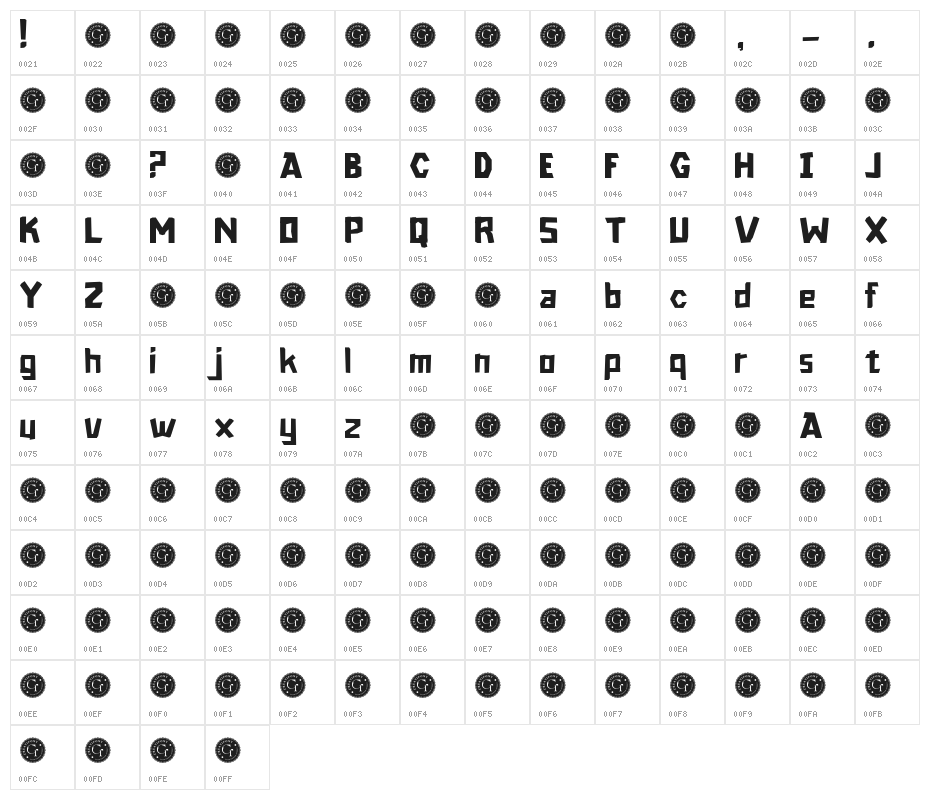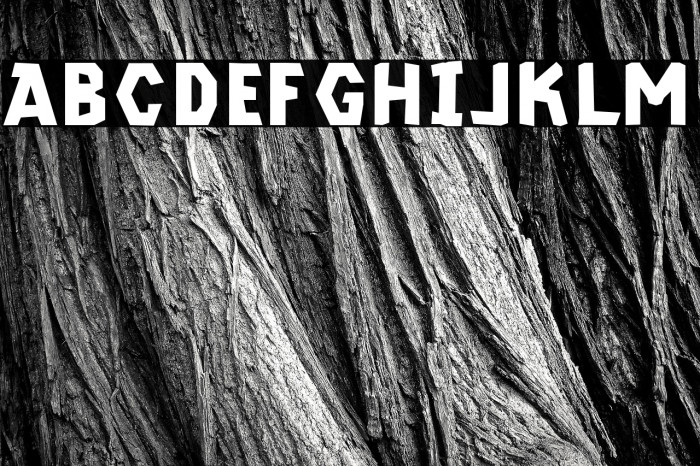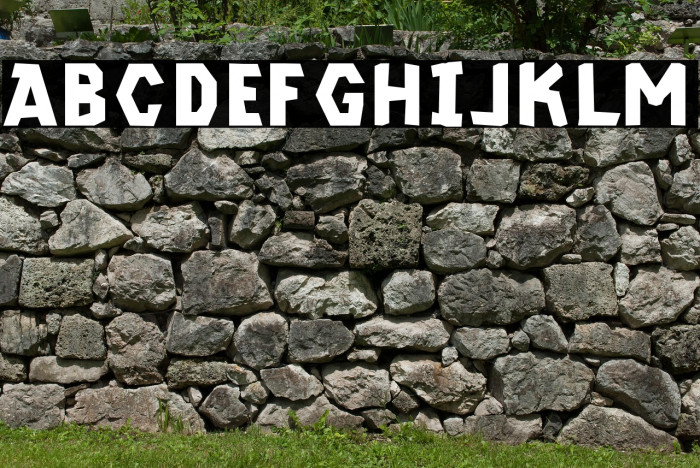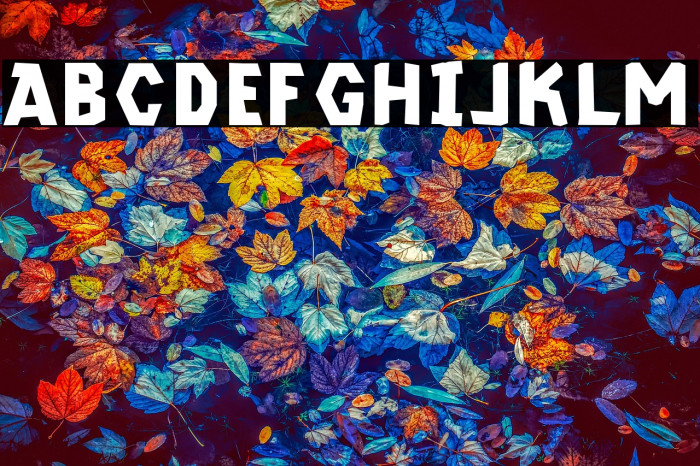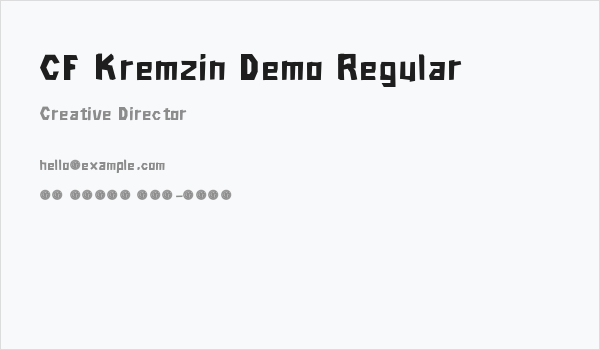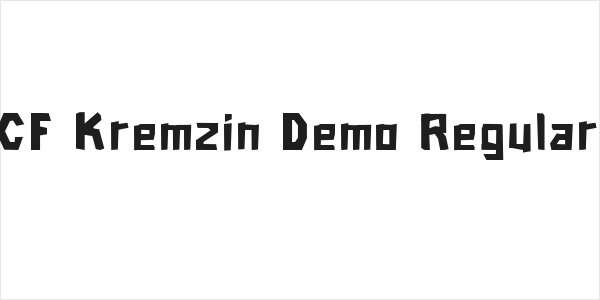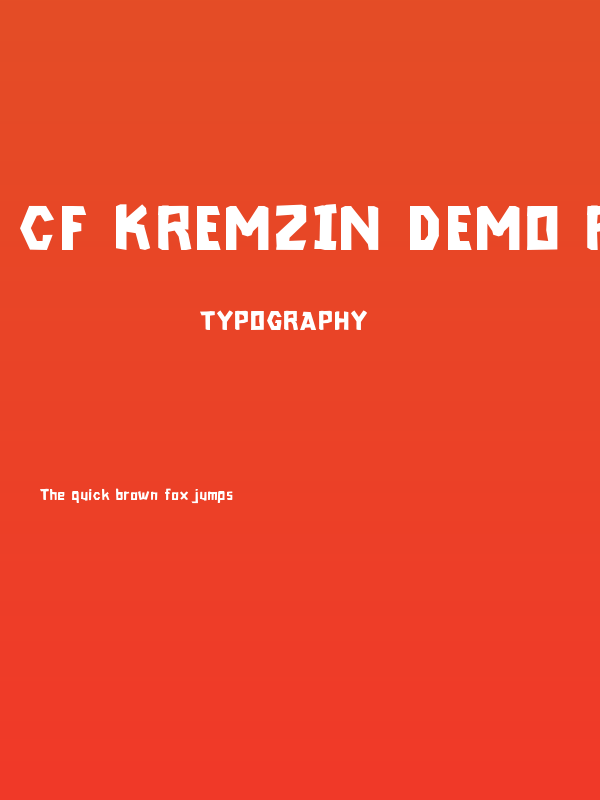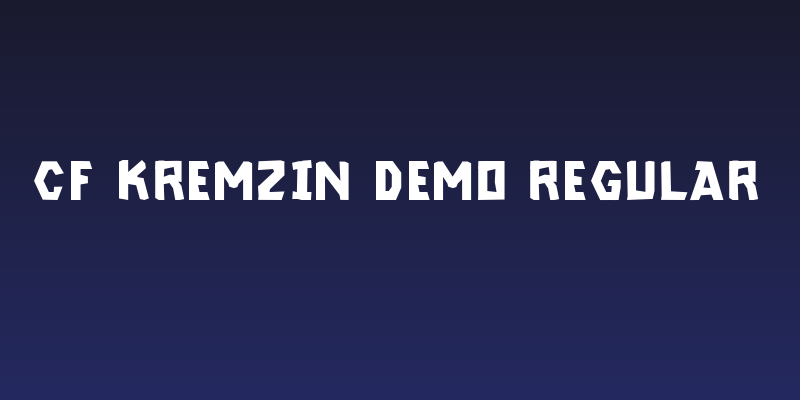
CF Kremzin Demo Regular Font
CF Kremzin Demo Regular Description
This font features a bold and angular design, characterized by its sharp edges and geometric shapes. The uppercase letters have a strong presence with a slightly condensed form, while the lowercase letters maintain a consistent style with a touch of playfulness. The numerals and special characters follow the same bold and edgy aesthetic, making them stand out. The overall style is modern and distinctive, suitable for projects that require a unique and eye-catching typeface.
| Proposed Projects | Ideal for branding, posters, and headlines that need a strong visual impact. |